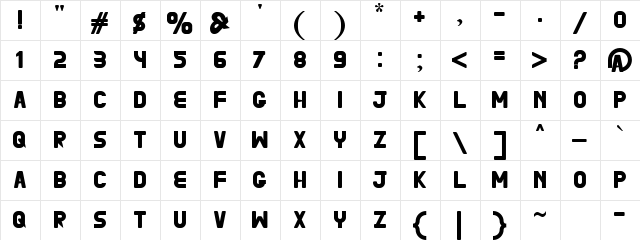
BRASOVIA Regular
| Designer | Afif Hidayat Alhabsi |
Design Context for BRASOVIA Typeface
BRASOVIA takes a measured approach to typography — its balanced proportions and neutral character make it a reliable workhorse for both digital and print work.